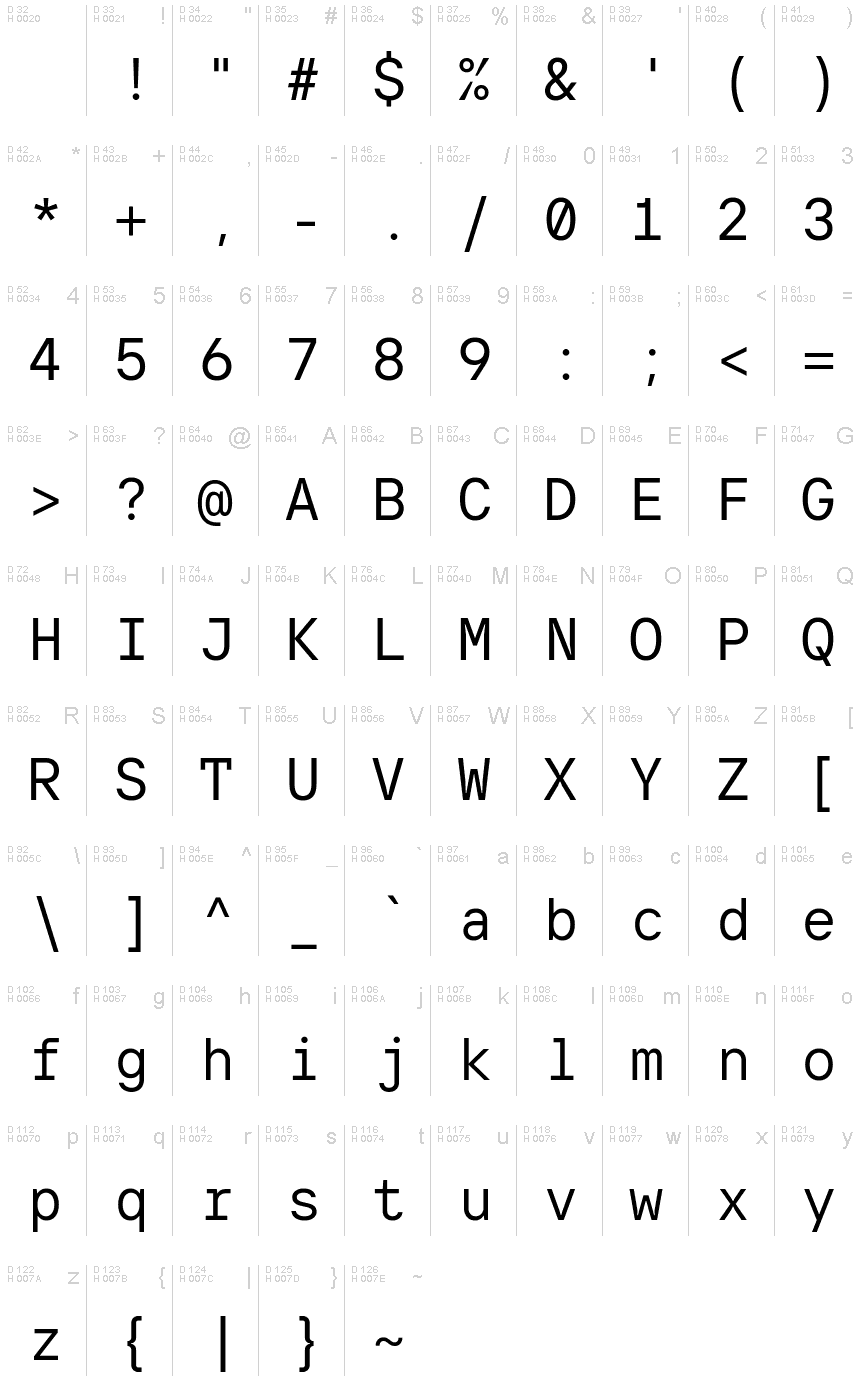
TT Interphases Pro Mn Trl Vr, created by TypeType Foundry, is a versatile sans serif font that combines modern elegance with legibility.
With its semi-light weight, this font is perfect for creating clean and professional designs for branding projects such as logos, business cards, and website headers. Its sleek and contemporary style also makes it suitable for editorial designs like magazines and brochures.
Furthermore, TT Interphases Pro Mn Trl Vr's clear letterforms ensure readability on both digital and printed materials, making it an ideal choice for web design interfaces and packaging designs.